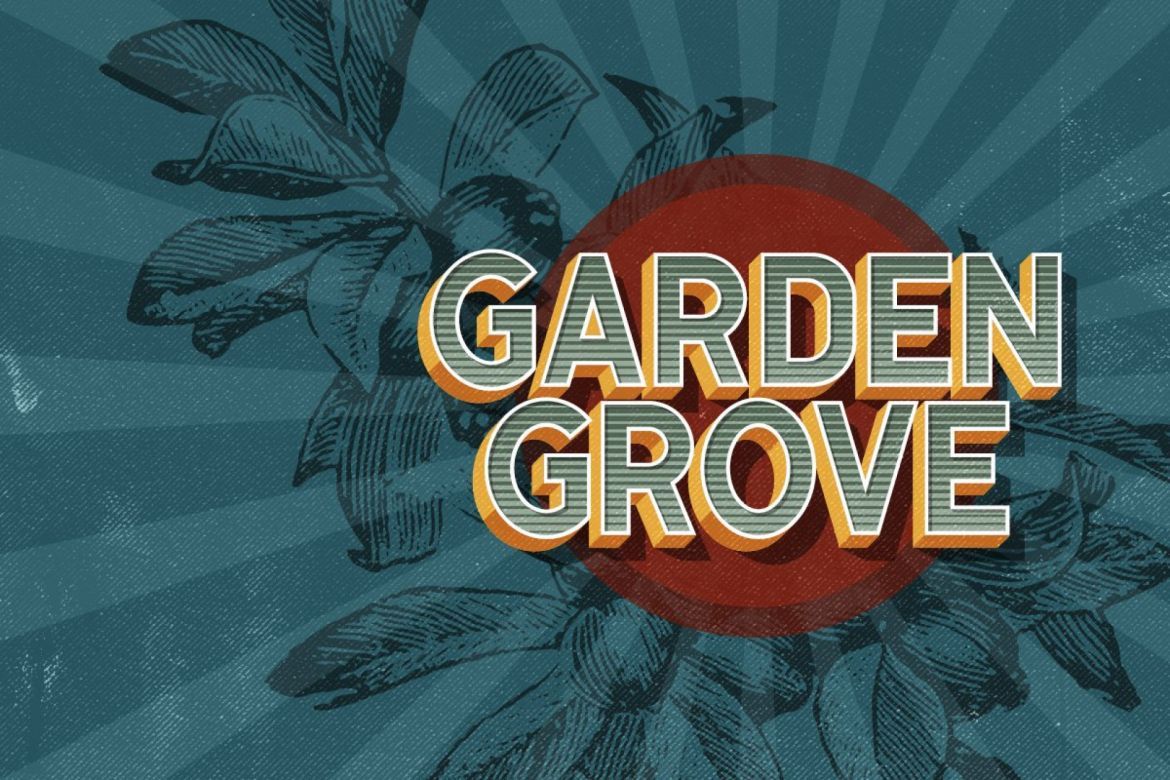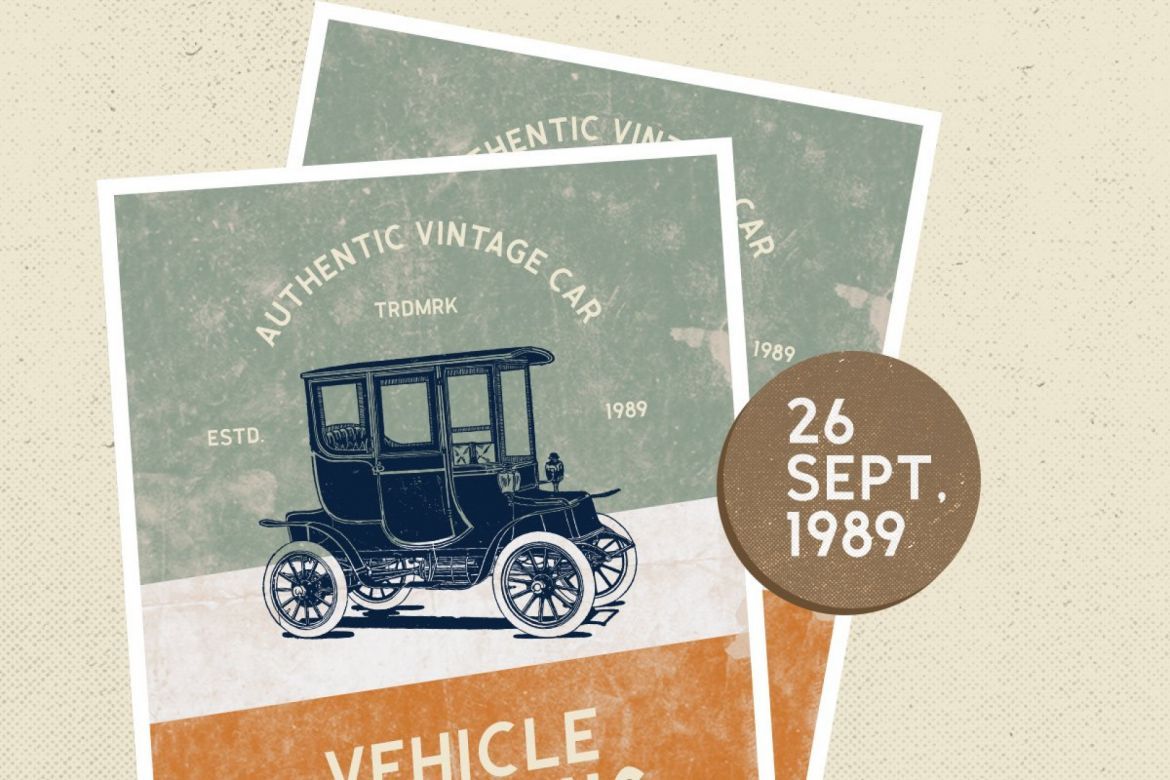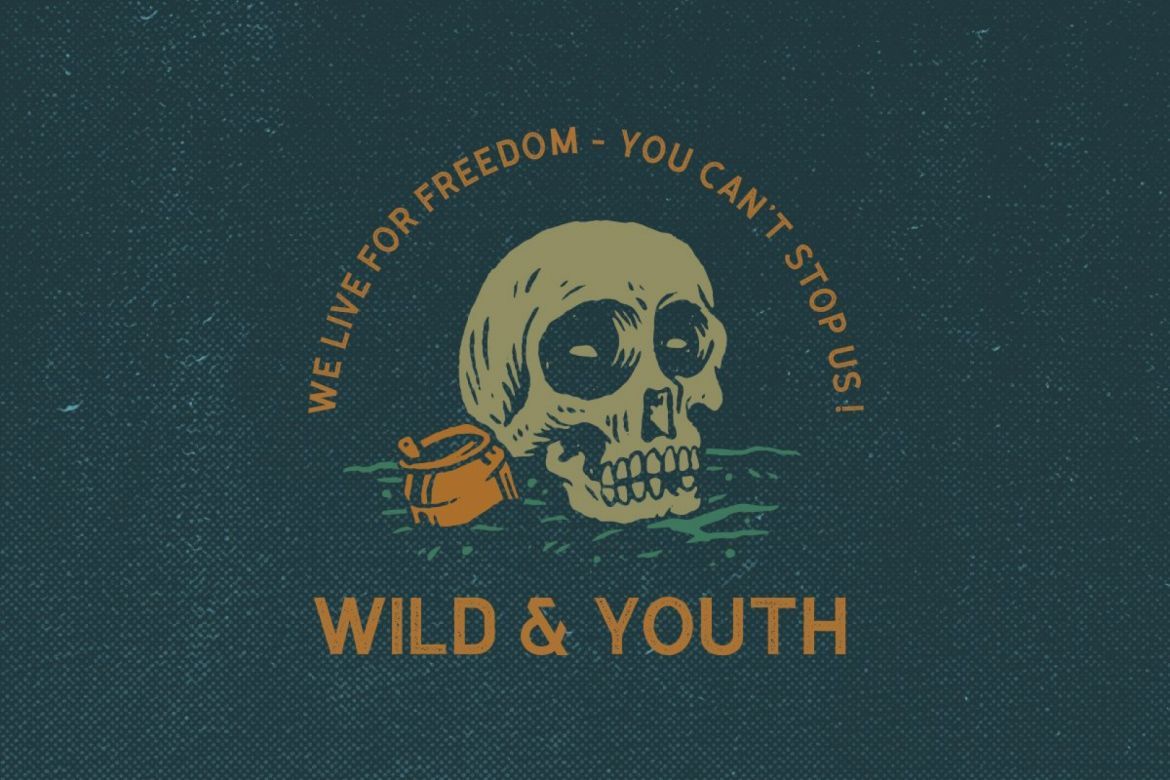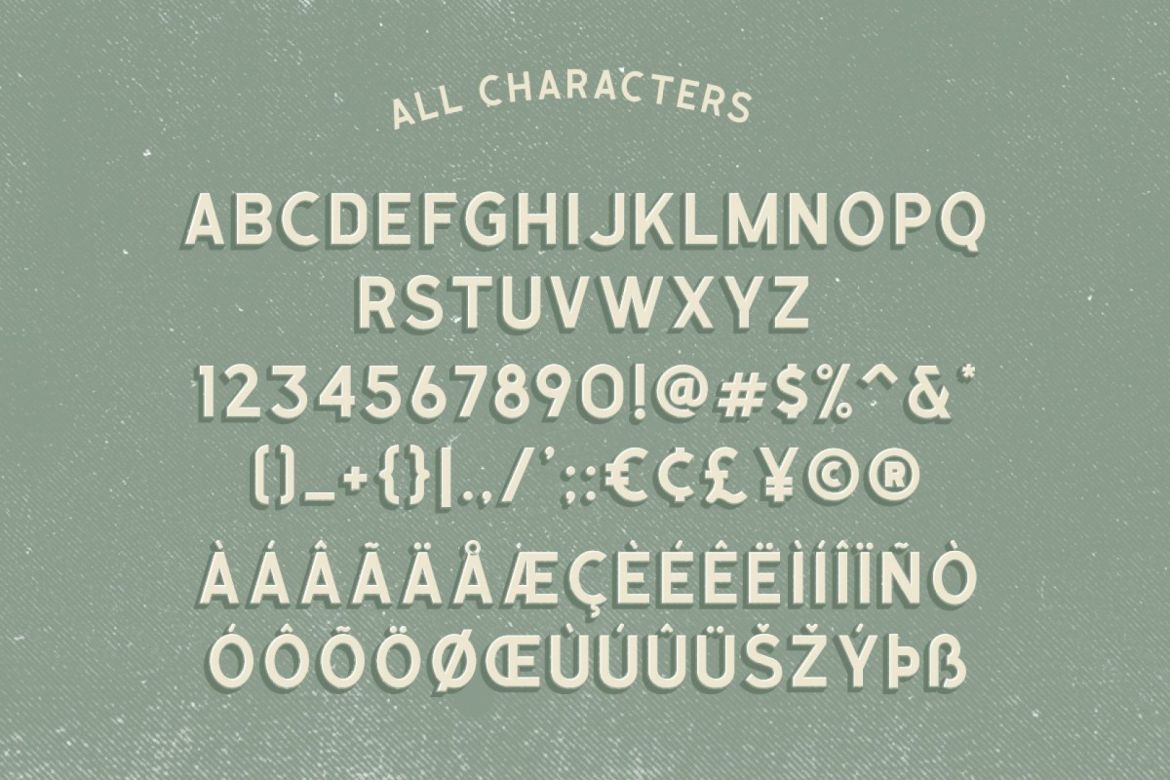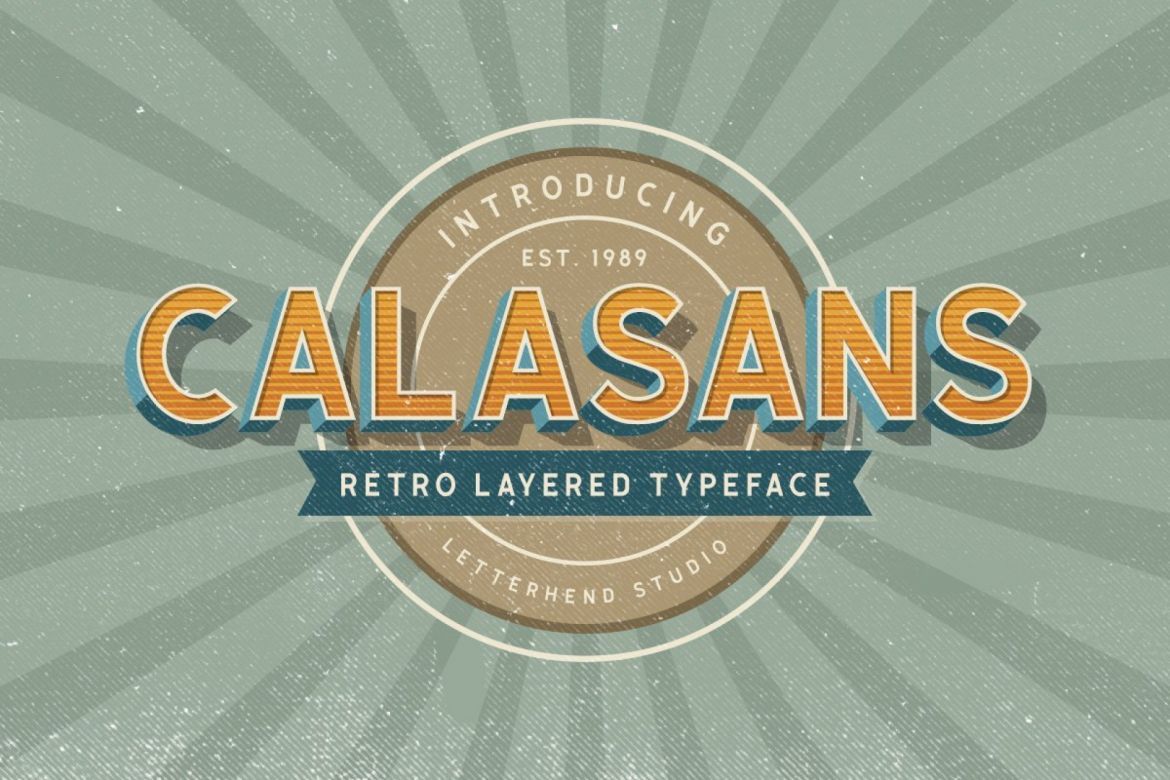
Calasans - 7 Layered Fonts
• this font is suitable for vintage posters, type 3d, or retro includes numbers and punctuation, also supports multi languages.
• you can create 3d views without using any addon, only with fonts